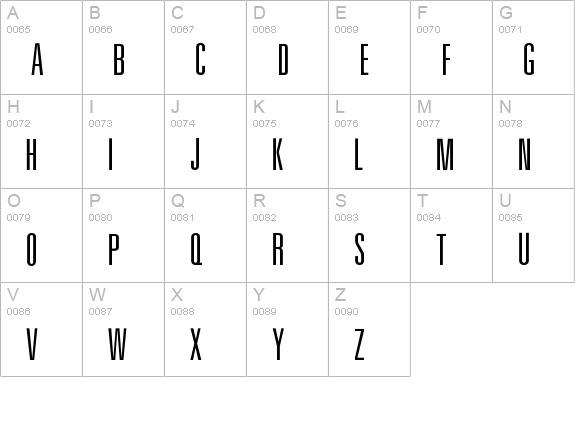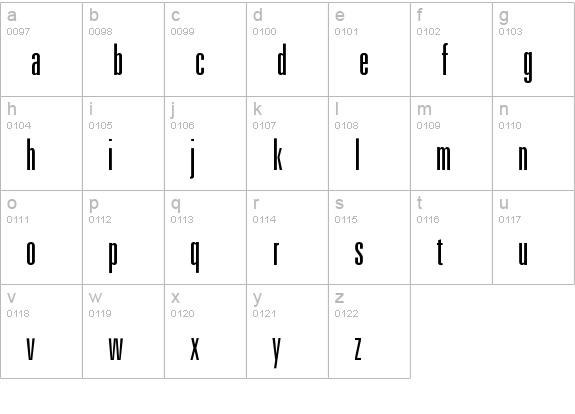
UniformUltraCond Font Details
UniformUltraCond font is a stunning and versatile typeface that will elevate any design project to new heights. With its sleek and slender letterforms, this font exudes elegance and sophistication. Its condensed proportions make it perfect for tight spaces and layouts that require a compact yet impactful typography. The clean lines and sharp angles of UniformUltraCond font create a modern and contemporary aesthetic, making it ideal for a wide range of applications. Whether you are designing a logo, branding materials, advertisements, or even a website, this font will undoubtedly make a lasting impression. But what truly sets UniformUltraCond font apart is its availability as a free download at FontsMarket.com. That's right, you can get your hands on this remarkable font without spending a dime. FontsMarket.com is a trusted source for high-quality fonts, and they have made UniformUltraCond font freely accessible to all designers and creatives. So why wait? Enhance your projects with the elegance and versatility of UniformUltraCond font today. Download it for free at FontsMarket.com and unlock a world of possibilities for your designs.